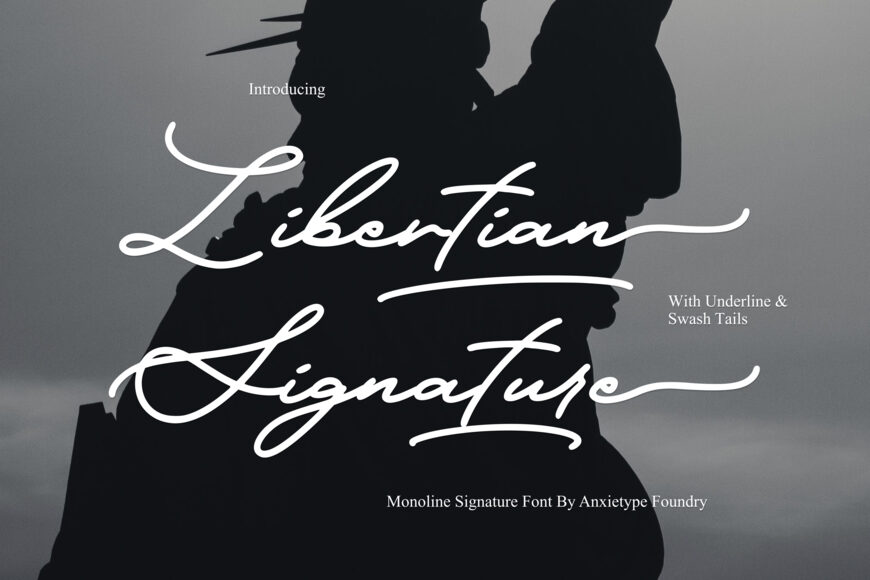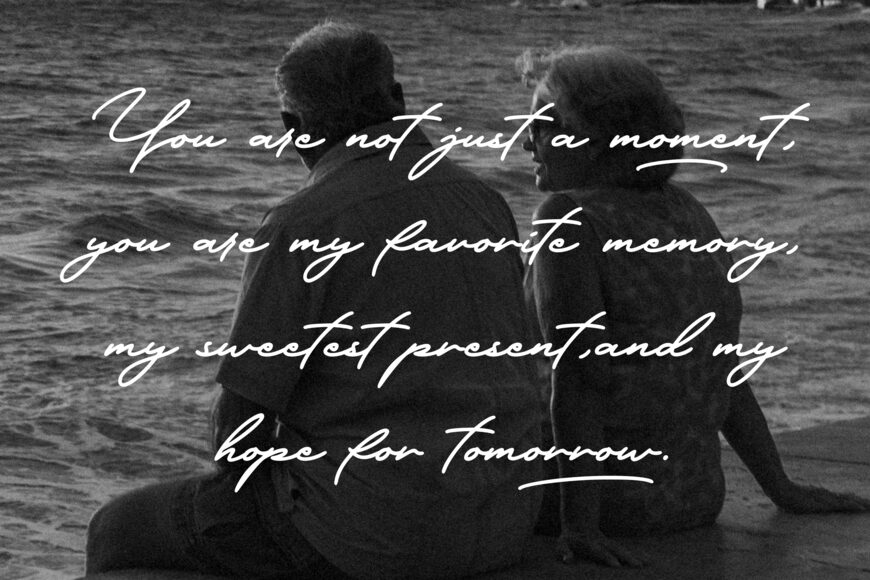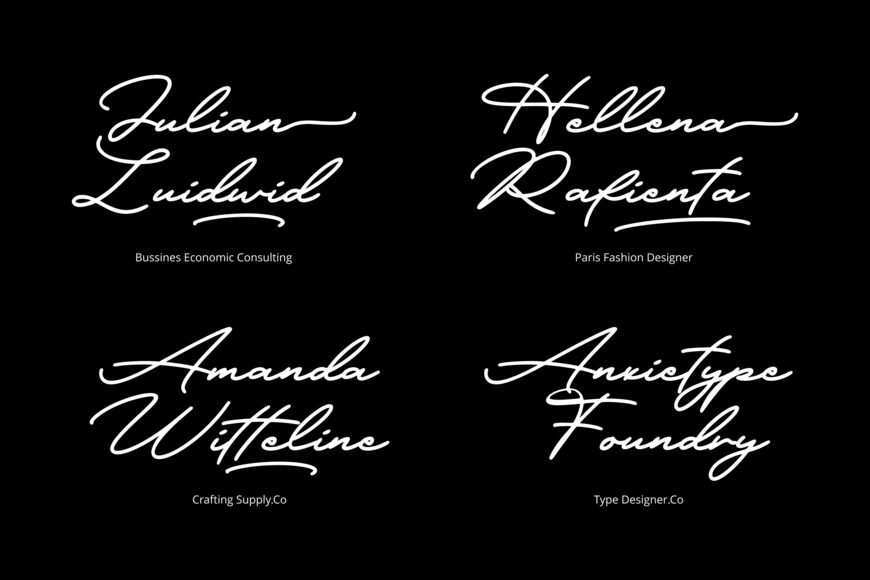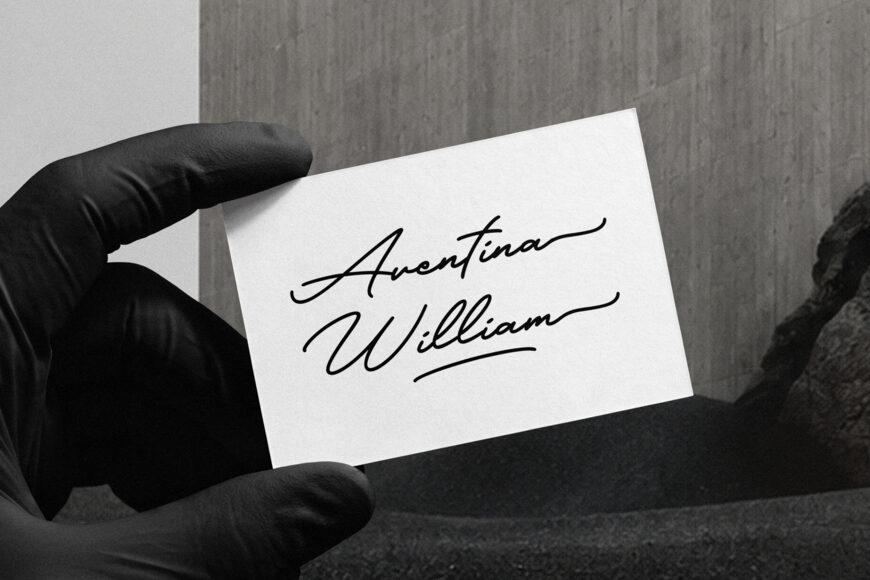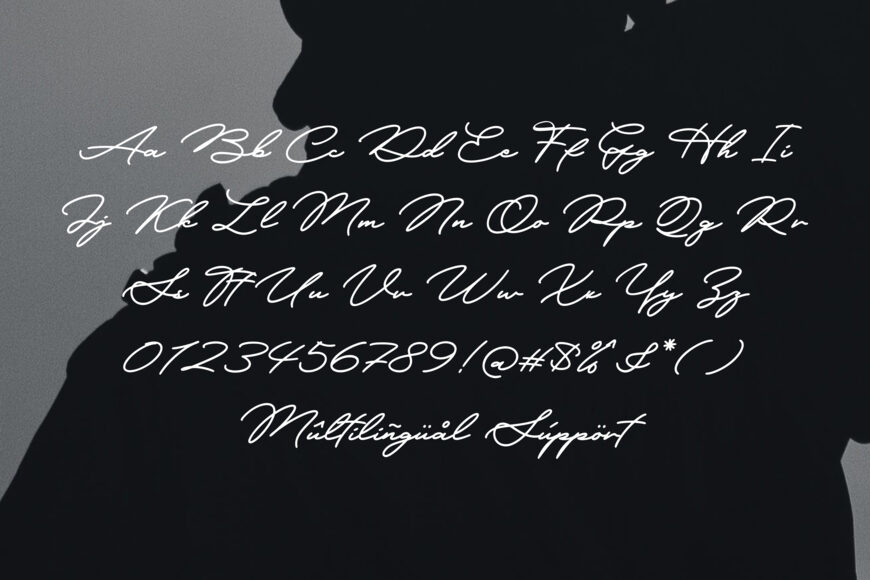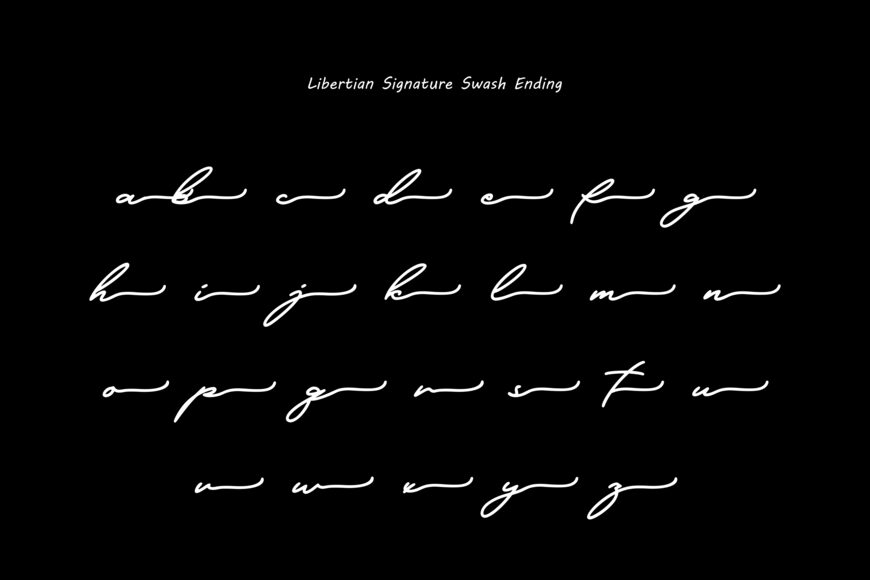
Experience the chic elegance of Libertian Signature, a pristine monoline signature font that embodies luxury and sophistication. With its flawless design and smooth contours, this font exudes a modern flair, making it perfect for logo design, branding, and sophisticated packaging.
It delivers the refined aesthetic needed for professional and business applications while retaining a delicate charm that is ideal for elegant wedding invitations, stationery, and creative crafting projects.